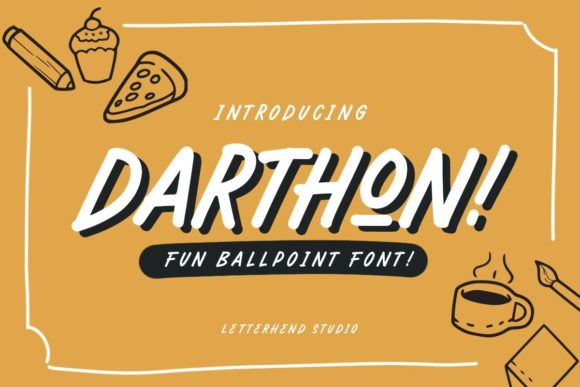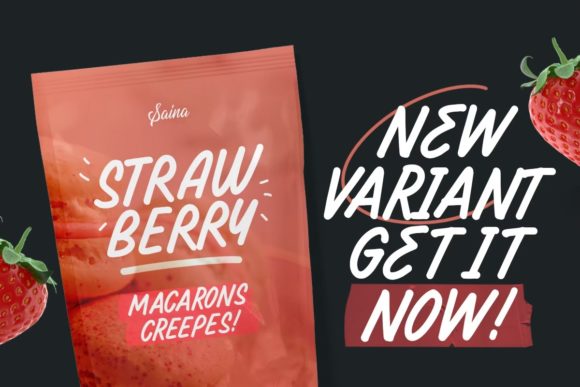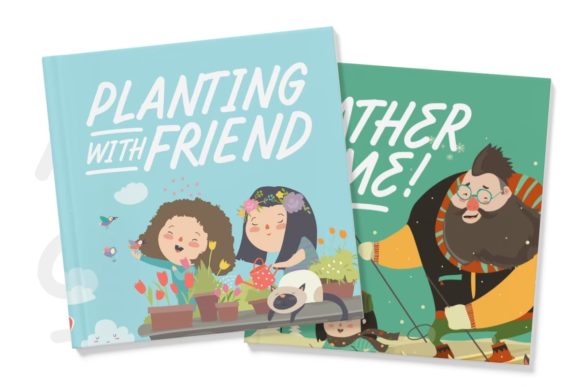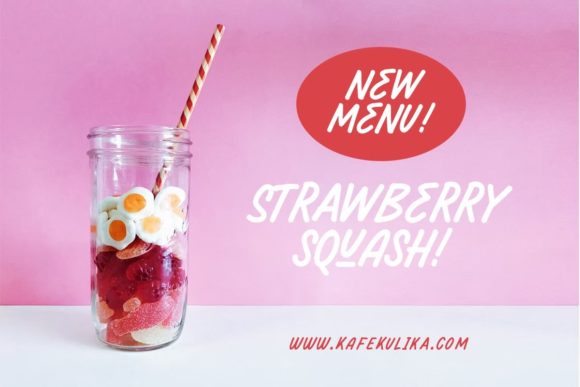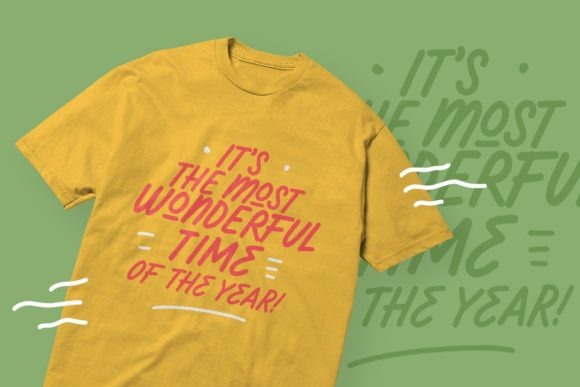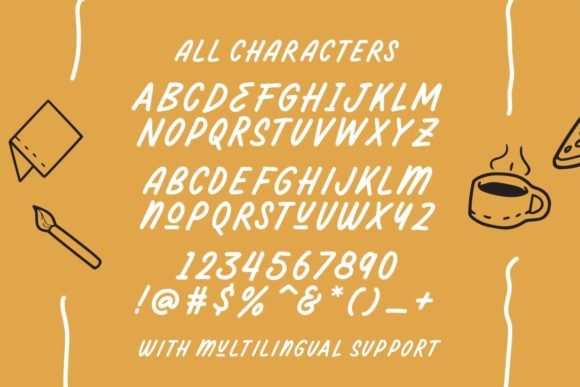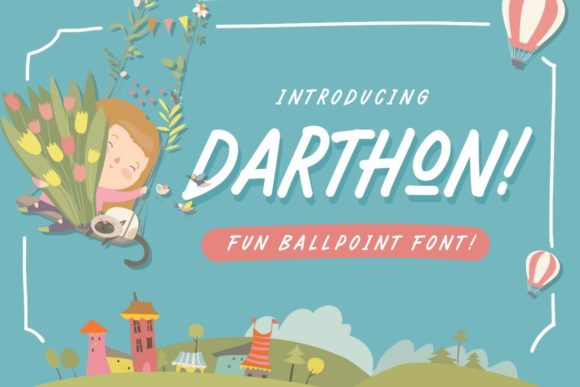
Discover the Elegance of Darthon Font: Elevate Your Designs with a Simple yet Impactful Lettered Display Font
In the world of typography, fonts play a crucial role in making or breaking the visual appeal of a design. For designers, crafters, and anyone looking to add a touch of personality to their creative projects, the right font can make all the difference. This is where Darthon Font comes into play – a simple, neat, and remarkably versatile lettered display font designed to make your ideas stand out.
What is Darthon Font?
Darthon Font is a thoughtfully crafted typeface that embodies simplicity and elegance. Its clean lines and uncluttered design make it an excellent choice for a wide range of applications, from digital media to print materials. Whether you’re working on a branding project, crafting a unique invitation, or simply looking to add some character to your social media posts, Darthon Font is designed to enhance your creative expressions.
The Characteristics of Darthon Font
So, what sets Darthon Font apart from other display fonts? Here are a few key characteristics that make it a standout choice:
- Simplicity: At its core, Darthon Font is built on the principle of simplicity. Its straightforward design ensures that your message is conveyed clearly and effectively, without any distractions.
- Neatness: Every letter in Darthon Font is meticulously designed to contribute to a cohesive and harmonious look. This neatness ensures that your text looks professional and polished.
- Versatility: Despite its simplicity, Darthon Font is incredibly versatile. It can be used in various contexts, from headings and titles to short paragraphs of text, making it a valuable addition to any designer’s toolkit.
- Legibility: One of the critical features of Darthon Font is its excellent legibility. Even at smaller sizes, it remains clear and easy to read, which is essential for ensuring your message gets across effectively.
How to Use Darthon Font in Your Designs
Integrating Darthon Font into your projects is straightforward, and its flexibility means it can be adapted to suit a variety of design needs. Here are some ideas to get you started:
- Branding: Use Darthon Font for your logo, business cards, or packaging to give your brand a clean, modern look.
- Digital Content: Enhance your blog posts, social media updates, or website headers with Darthon Font to add a touch of elegance and sophistication.
- Print Materials: From invitations and flyers to posters and brochures, Darthon Font is perfect for any printed material where you want to make a lasting impression.
- Crafting: If you’re into crafting, Darthon Font can be a great addition to your DIY projects, such as hand-lettered cards, scrapbooking, or any other paper craft.
Why Choose Darthon Font?
With so many fonts available, why should Darthon Font be your go-to choice? The answer lies in its unique blend of simplicity, versatility, and aesthetic appeal. Here are a few compelling reasons:
- Professional Look: Despite its ease of use, Darthon Font gives your designs a professional and polished look that’s sure to impress.
Darthon Font is more than just a typeface – it’s a tool that can elevate your designs, making them stand out in a crowded digital landscape. Its simplicity, neatness, and versatility make it an excellent choice for designers and crafters looking to add a touch of elegance to their projects. Whether you’re working on a professional project or a personal crafting endeavor, Darthon Font is sure to enhance your creative expressions. So, why wait? Add Darthon Font to your toolkit today and discover the difference it can make.